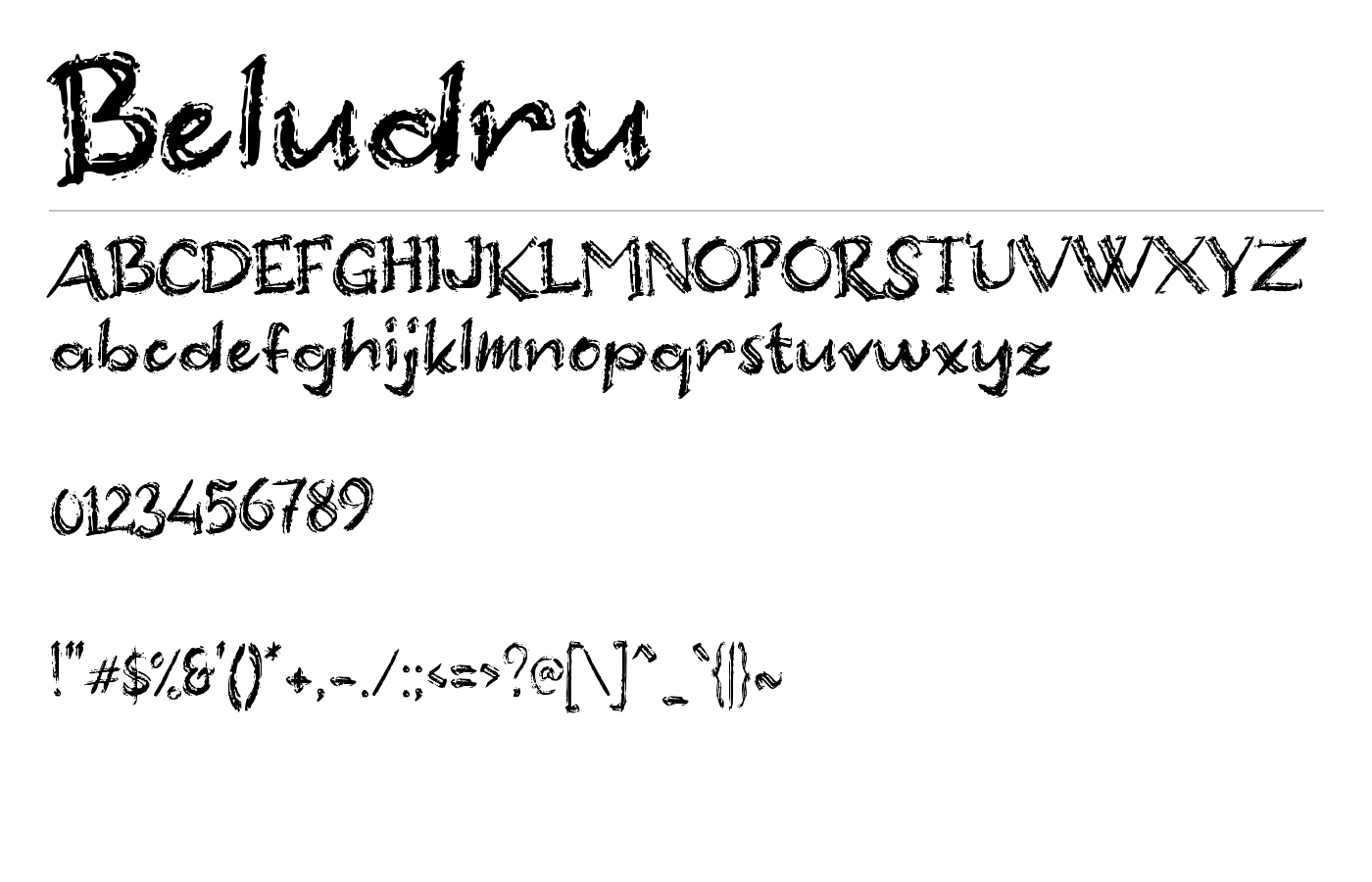
Beludru is a distinctive handwritten-style font with a textured, rough stroke that gives it an artistic and slightly edgy feel. Its irregular, brush-like forms and moderate x-height create a casual yet expressive look, making it ideal for creative projects, posters, or brands seeking an unconventional and dynamic personality. This font works best where a bold, hand-crafted aesthetic is needed to stand out and convey creativity.
Beludru Font
About Beludru Font